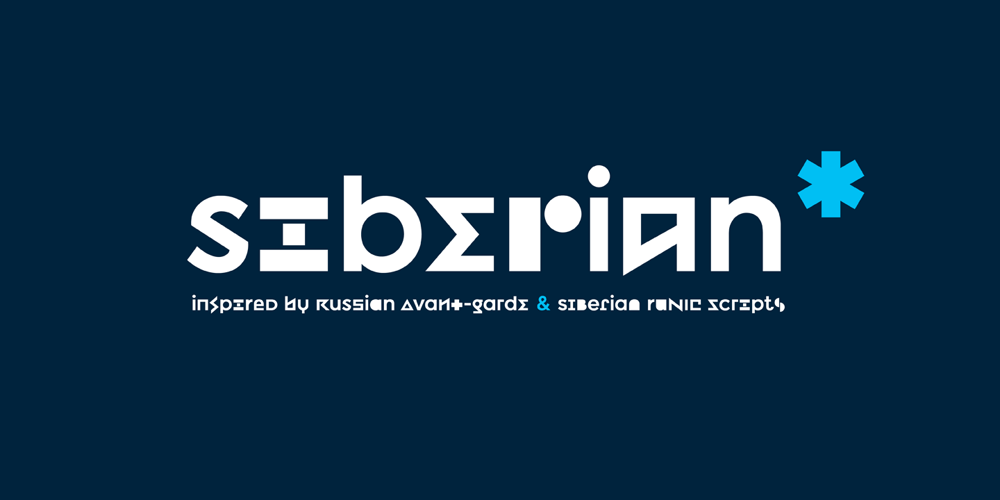
Siberian Font Family was designed by Oleg Macujev and published by omtype. Siberian contains 1 styles and family package options. Siberian is a geometric unicase sans-serif. It was inspired by Russian avant-garde typography and old Siberian runic scripts (Orkhon-Yenisey script). The idea was to create a typeface so simple, cold and beautiful as the snow in Siberia. And varied of course, as the snow too (according to a legend snow has more than 100 names in the north Siberian people’s language). So, every letter in this typeface has 7 stylistic alternates. And you can choose how cold your typography should be today. Siberian was initially designed for the I’m Siberian project (the tourist branding of Siberia).